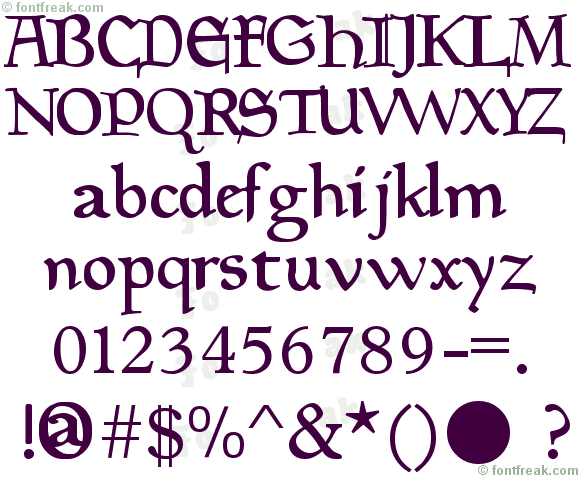
Magic Cards Normal
About Magic Cards
The Magic Cards font by Neale Davidson is a decorative typeface that brings a touch of fantasy and whimsy to any project. Released in 1998, this freeware font features a unique visual style characterized by its playful, rounded letterforms and a friendly, approachable aesthetic. The stroke weight is consistent throughout, with slight variations that enhance the overall charm without compromising readability. The letters are well-spaced, making it an excellent choice for both display and body text, allowing for versatility in various design applications.
Ideal for use in creative projects, the Magic Cards font can significantly elevate invitations for themed parties, fantasy book covers, and even game-related graphics. Its lively appearance makes it perfect for designing restaurant menus that aim to convey a fun, casual dining experience or for creating engaging marketing materials for small businesses looking to stand out. Graphic designers and content creators will find this font particularly appealing, as it lends itself well to projects that require a sense of magic and imagination.